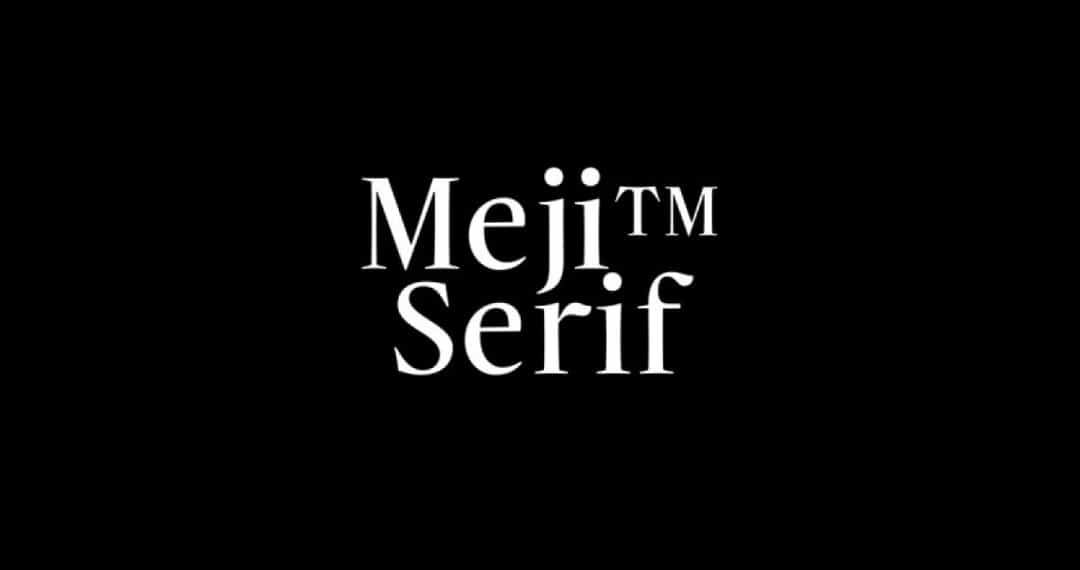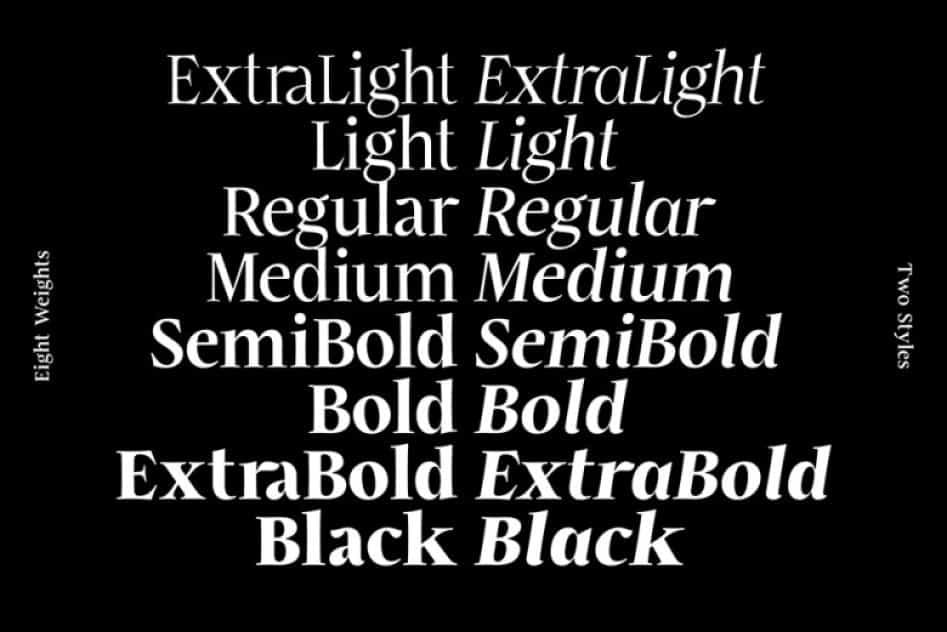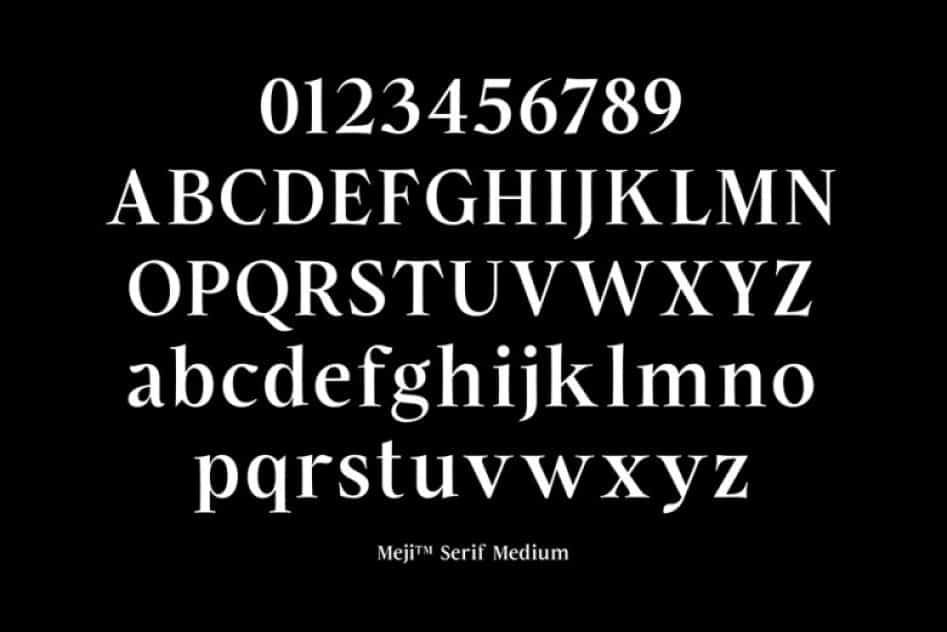
Meji(tm) Serif is a serif typeface inspired by our hero, Meji the Rabbit. With eight weights (extralight light, regular medium, semibold bold black and extra bold black) and two styles (normal and italic), this font from our collection can accommodate over 60 languages that use Latin alphabet derived languages such as Western, Central and South-Eastern European dialects.